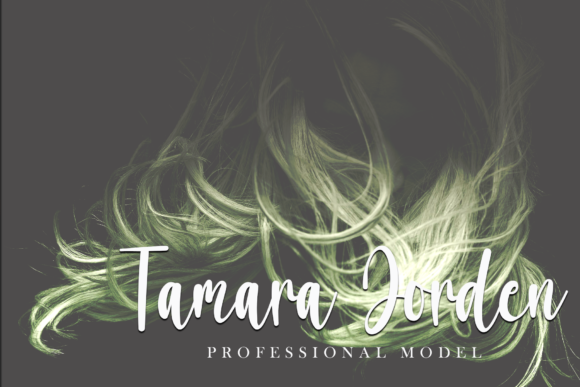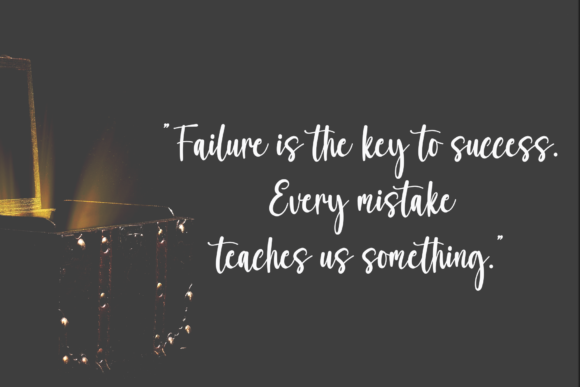
Monographic Font
db-ku.com - Script & Handwritten -- Monographic is a romantic and sweet calligraphy typeface with characters that dance along the baseline. It has a casual yet elegant feel.